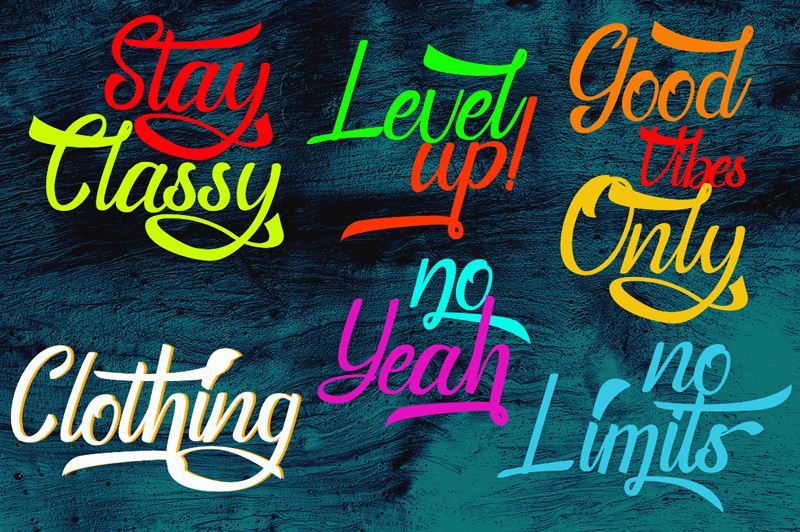
Preview and download Dottinghise Font. Created by Muhammad Wahyudin in Script Various styles with Free for personal use license.
Font name: | Dottinghise |
Author: | Muhammad Wahyudin |
Hi everyone! Introducing. Dottinghise is a handwritten, smooth, modern and classic, calligraphy wavy, which was created to meet the needs of your next design project. Still Shine, Can be used for various purposes. such as the title, signature, logo, correspondence, wedding invitations, letterhead, signage, labels, newsletters, posters, badges, etc. NOTE: This demo font is for PERSONAL USE ONLY! But any donation are very appreciated. Paypal account for donation : https://www.paypal.me/wahyudin1886 Link to purchase commercial license : https://thehungryjpeg.com/product/3635600-dottinghise-font Please visit our store for more great fonts : https://graphicriver.net/user/letter_deen Follow our instagram : @letterdeen_ Thank you. |